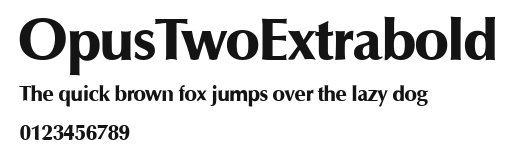
OpusTwoExtrabold Preview
• Font Name: OpusTwoExtrabold
• Full Font Name: OpusTwoExtrabold-Regular
About OpusTwoExtrabold.ttf
OpusTwoExtrabold.ttf is a modern, elegant sans-serif font designed for ultimate readability and visual harmony. Perfect for branding, headlines, web design, and print materials.